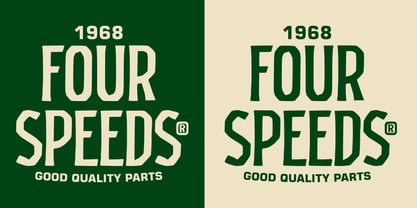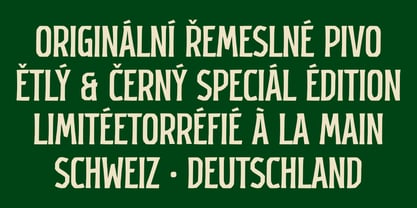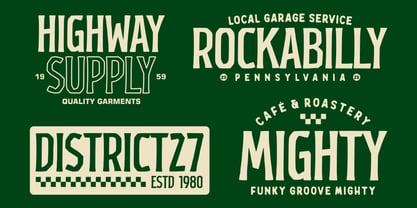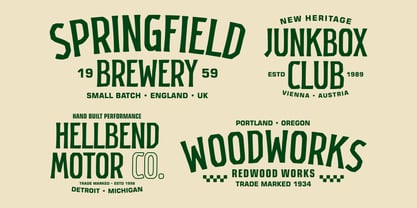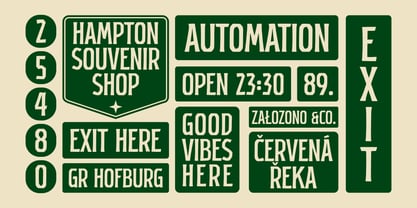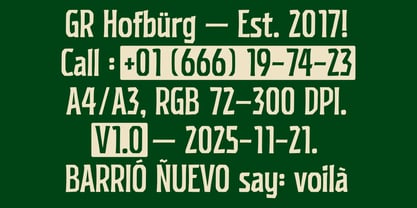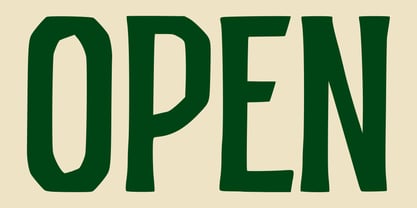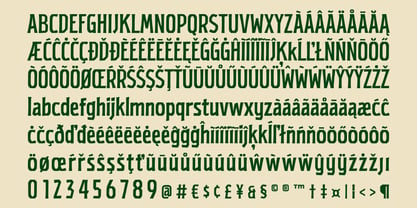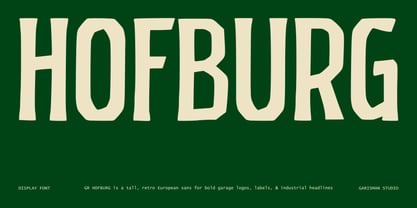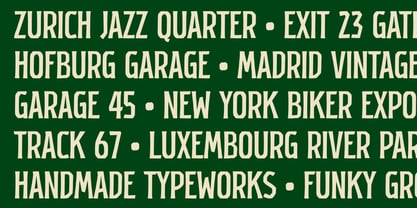
GR Hofburg
by Garisman Studio
The GR Hofburg Font Family was designed by Risman Ginarwan and published by Garisman Studio. GR Hofburg contains 1 styles. More about this family
GR Hofburg is a rough vintage sans serif display inspired by European garage signage, industrial lettering, and utilitarian wayfinding systems. Its condensed, simple shapes give headlines and titles a strong presence while the textured edges add a worn, mechanical character. Designed for logos, posters, and signage, GR Hofburg works best when words need to look bold and functional, with just enough imperfection to feel authentic and lived-in. The condensed proportions keep text compact and efficient, making it ideal for stacked titles, badges, and branding marks. GR Hofburg supports multilingual Latin-based languages, making it suitable for identity systems and display typography that need to work across different regions and markets